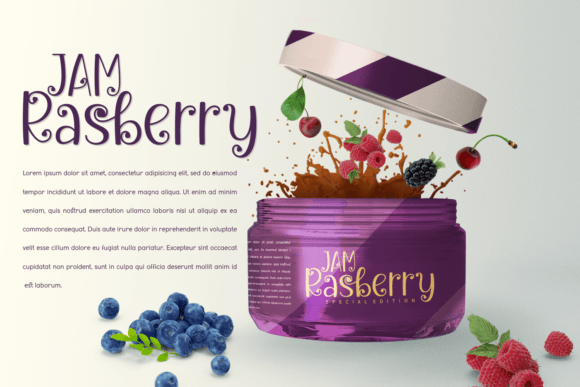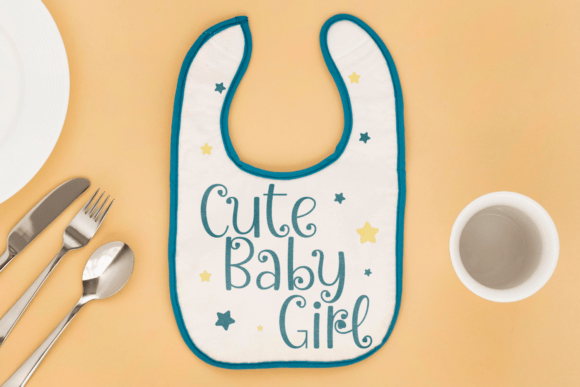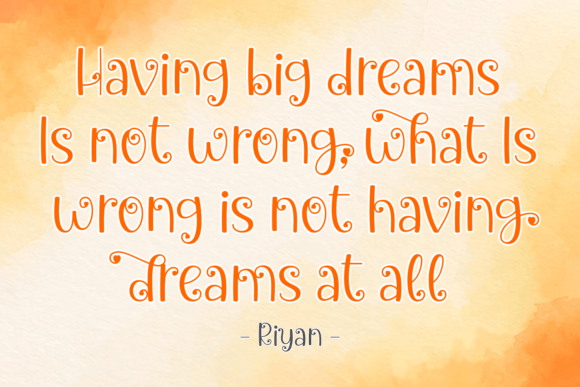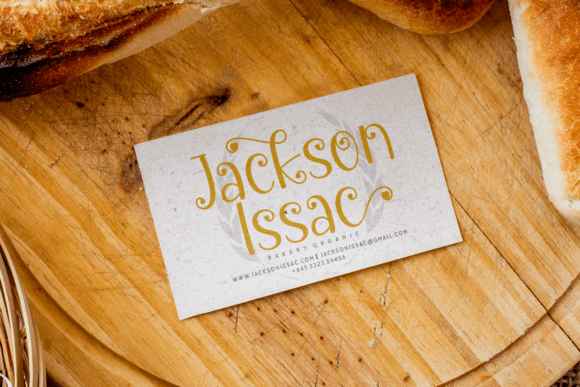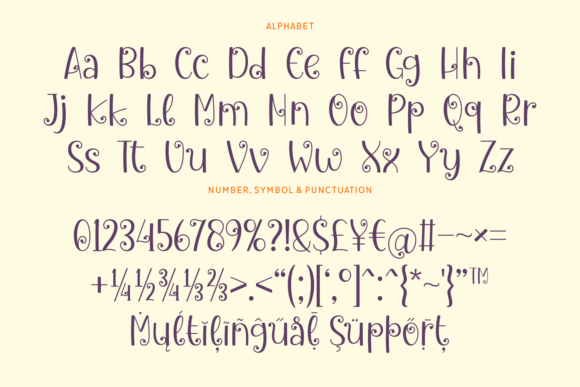
Introducing Curly Quirky Font: Elevate Your Designs with a Playful Twist
Are you tired of using the same old fonts in your designs? Look no further than Curly Quirky Font, a fun and playful typeface that’s sure to level up your next project. With its eye-catching swirls and whimsical charm, Curly Quirky is perfect for designers and crafters looking to add a touch of personality to their work.
The Perfect Font for Creative Projects
Curly Quirky Font is a versatile typeface that can be used for a wide range of creative projects. Whether you’re designing birthday cards, invitations, wedding invitations, logos, coffee shop branding, or social media covers, Curly Quirky is the perfect choice. Its unique swirls and flourishes add a touch of whimsy and fun to any design, making it perfect for projects that require a playful twist.
Key Features of Curly Quirky Font
- PUA Encoded: Curly Quirky Font is PUA encoded, making it easy to access all the glyphs and special characters. This means you can easily insert the swirls and flourishes into your designs without having to worry about complicated font mapping.
- Eye-Catching Swirls: The font features beautiful, eye-catching swirls that add a touch of personality to any design. The swirls can be used to create stunning headings, titles, and graphics that are sure to grab attention.
- Playful and Whimsical: Curly Quirky Font has a playful and whimsical feel that’s perfect for designs that require a touch of fun and personality. The font is sure to bring a smile to your customers’ faces and make your designs stand out from the crowd.
Use Cases for Curly Quirky Font
Curly Quirky Font is a versatile typeface that can be used for a wide range of projects, including:
- Birthday Cards: Add a touch of fun and personality to your birthday cards with Curly Quirky Font. The font’s playful swirls and flourishes are perfect for creating eye-catching headings and titles.
- Invitations: Whether you’re designing wedding invitations, baby shower invitations, or graduation announcements, Curly Quirky Font is a great choice. The font’s elegant swirls and flourishes add a touch of sophistication and whimsy to any design.
- Logos and Branding: Curly Quirky Font is perfect for creating unique and memorable logos and branding materials. The font’s playful swirls and flourishes can be used to create eye-catching graphics and headings that are sure to grab attention.
- Coffee Shop Branding: Add a touch of personality to your coffee shop branding with Curly Quirky Font. The font’s playful swirls and flourishes are perfect for creating eye-catching menus, signs, and advertising materials.
- Covers and Quotes: Curly Quirky Font is a great choice for designing covers and quotes for social media, blogs, and websites. The font’s elegant swirls and flourishes add a touch of sophistication and whimsy to any design.
Why Choose Curly Quirky Font?
There are many fonts available that claim to be fun and playful, but Curly Quirky Font stands out from the crowd. Here are just a few reasons why:
- Unique and Exclusive: Curly Quirky Font is a unique and exclusive typeface that’s sure to make your designs stand out from the crowd.
- High-Quality Design: The font is designed with high-quality graphics and swirls that are sure to grab attention.
- Easy to Use: Curly Quirky Font is PUA encoded, making it easy to access all the glyphs and special characters.